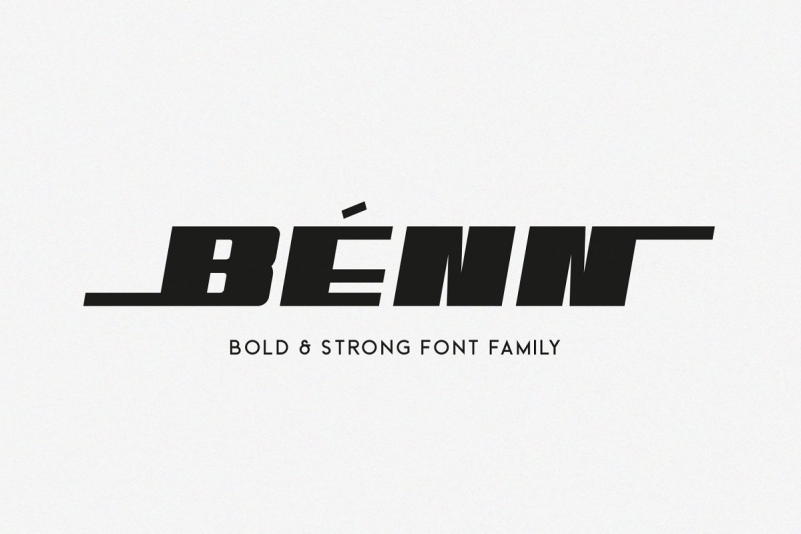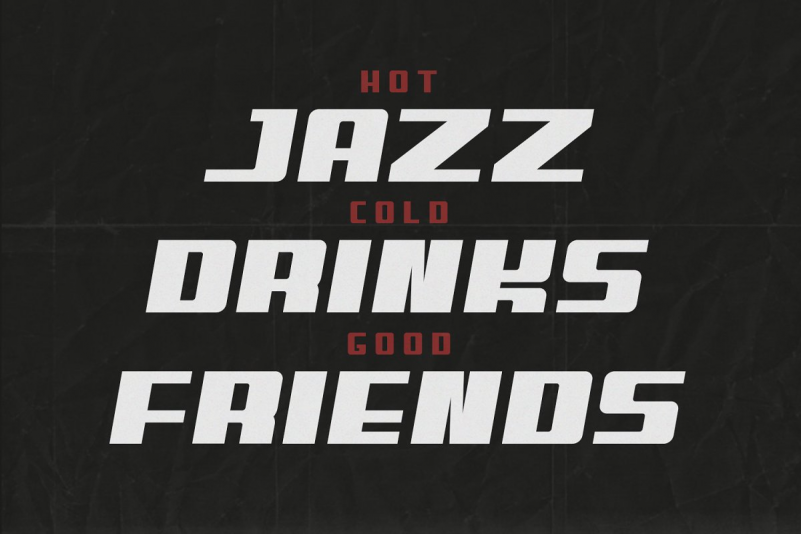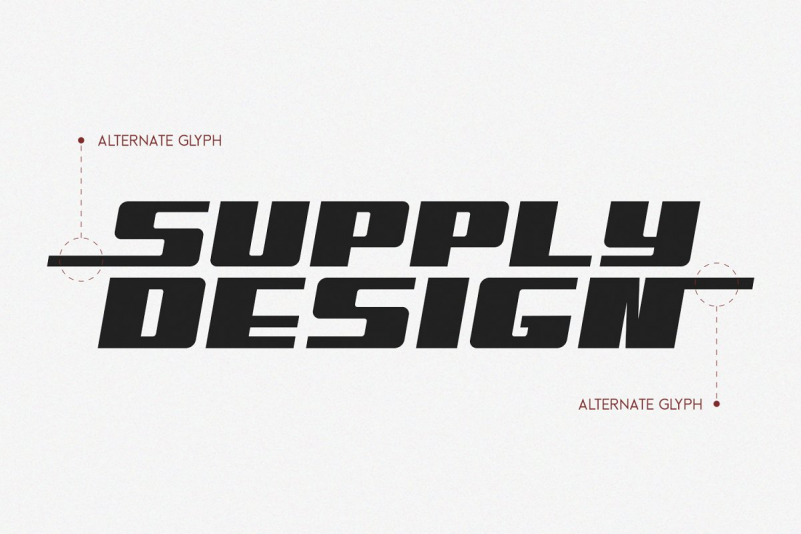
Benn Font
Benn is a bold and strong font family. Inspired by a car shape, it’s sturdy uncompromising style is felt through the controlled letterforms and fluid touches. A balance of hard lines and smooth curves.